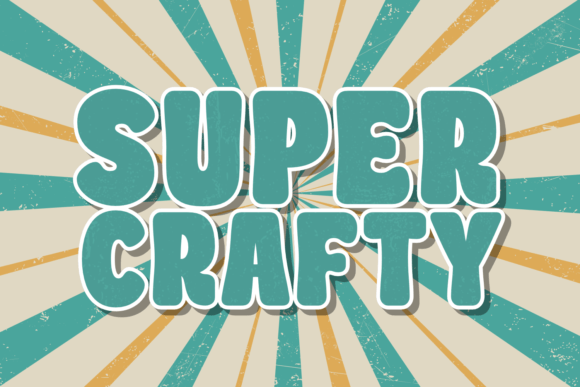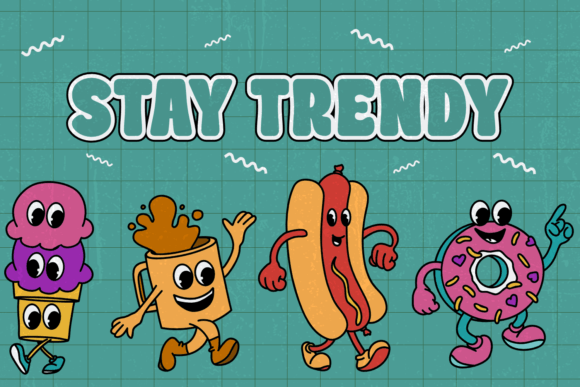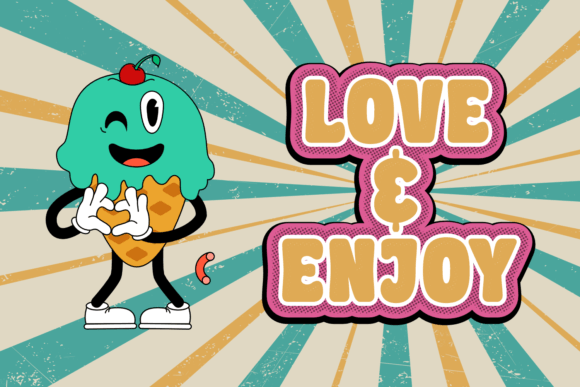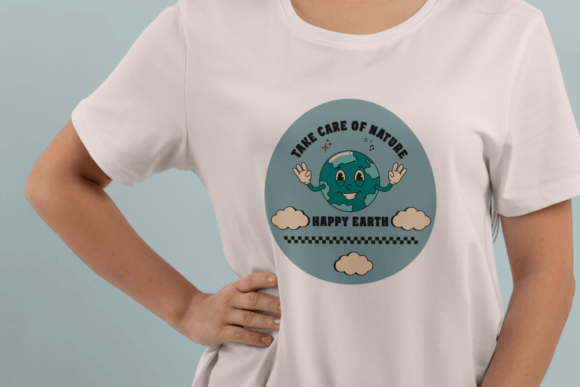
Super Crafty Font
Super Crafty is a beautiful retro-style display font. Take your typography designs to the highest level with this stylish font that you can use for a wide range of projects! It is perfect for creating enchanting posters, advertising materials, t-shirt typography, cards, product packaging, and more.